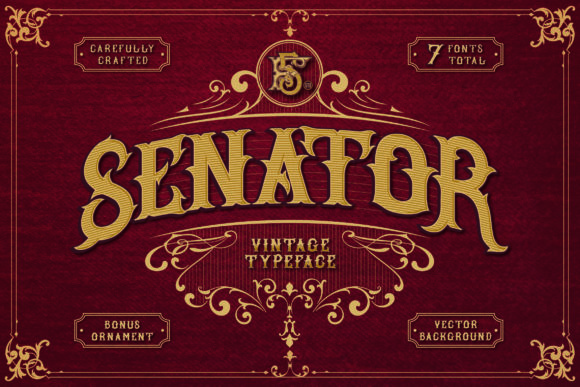
Senator Font
Unleash the captivating essence of the Senator font, a modern masterpiece that exudes vintage flair. Embark on a typographic journey where elegance meets audacity, where classicism fuses with a refreshing twist. Senator is not just a font; it's an artistic revolution waiting to be discovered.
Immerse yourself in the world of Senator, where serifs dance with confidence and curves embrace sharp angles, creating a visual symphony that commands attention. Each letterform is a work of art, meticulously crafted to evoke a sense of nostalgia and timeless appeal. Its bold strokes and distinctive terminals add a touch of modernity, making Senator an ideal choice for designs that demand attention.
With Senator, you'll captivate audiences with eye-catching headlines, create logos that leave a lasting impression, and produce designs that resonate with a sense of history and innovation. Its versatility shines through in posters, packaging, branding, and web design, where its vintage charm breathes life into contemporary creations.
Senator is more than just a font; it's an invitation to explore a world of creative possibilities. Its unique character and undeniable charm will transform your designs into unforgettable experiences. Embrace the allure of Senator and elevate your projects to new heights of visual brilliance.